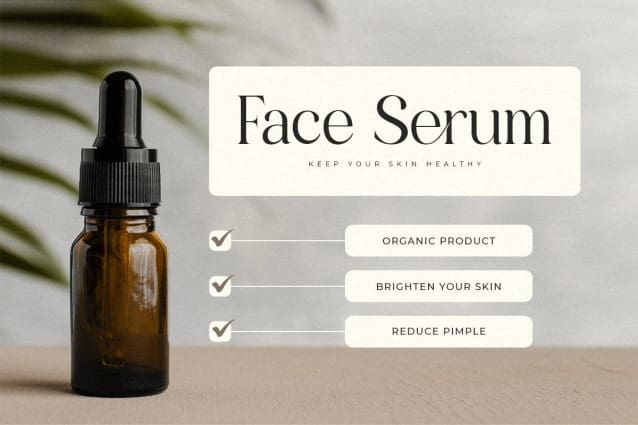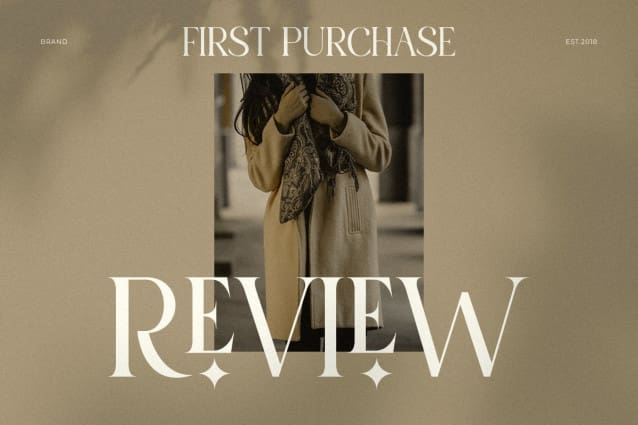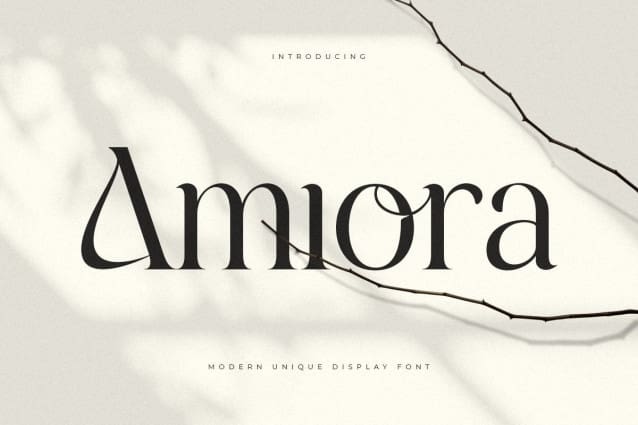
Amiora Font
Amiora Font, a display font that we created specifically for modern branding needs, with additional uniquely shaped ligatures, will be ready to add value to your brand. It’s so nice to call on a designer or product owner who needs solutions to make their design more elegant and luxurious. And especially for Amiora font, we have prepared all ligature characters to help you create unlimited variations for your creative needs.